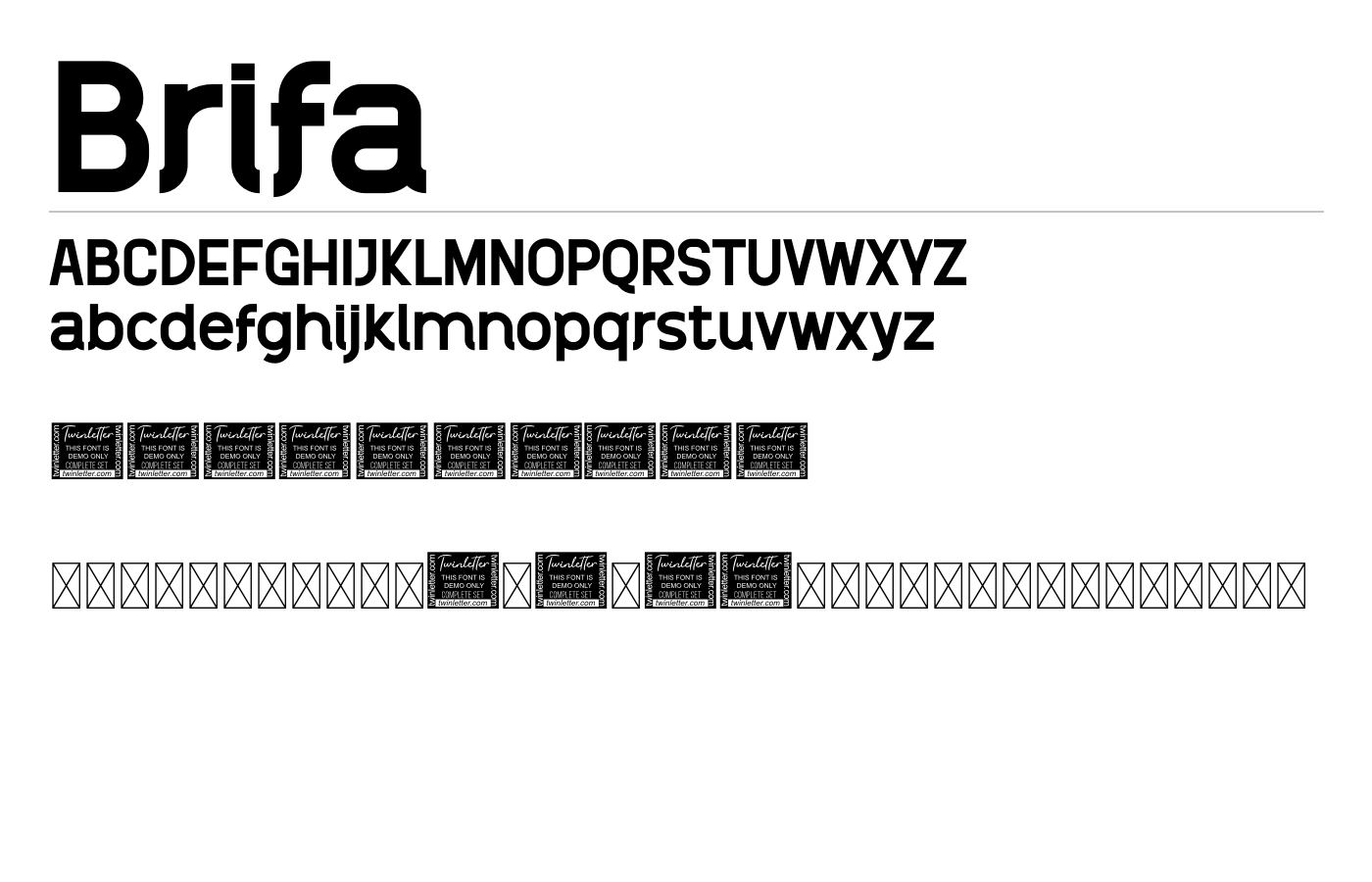
Brifa is a bold, modern sans serif font with strong geometric shapes and clean lines that create a confident and contemporary feel. Its slightly condensed width and uniform stroke weight make it highly legible and versatile, ideal for striking headlines, branding, and editorial designs that require a sleek, professional look.
Brifa Font
About Brifa Font